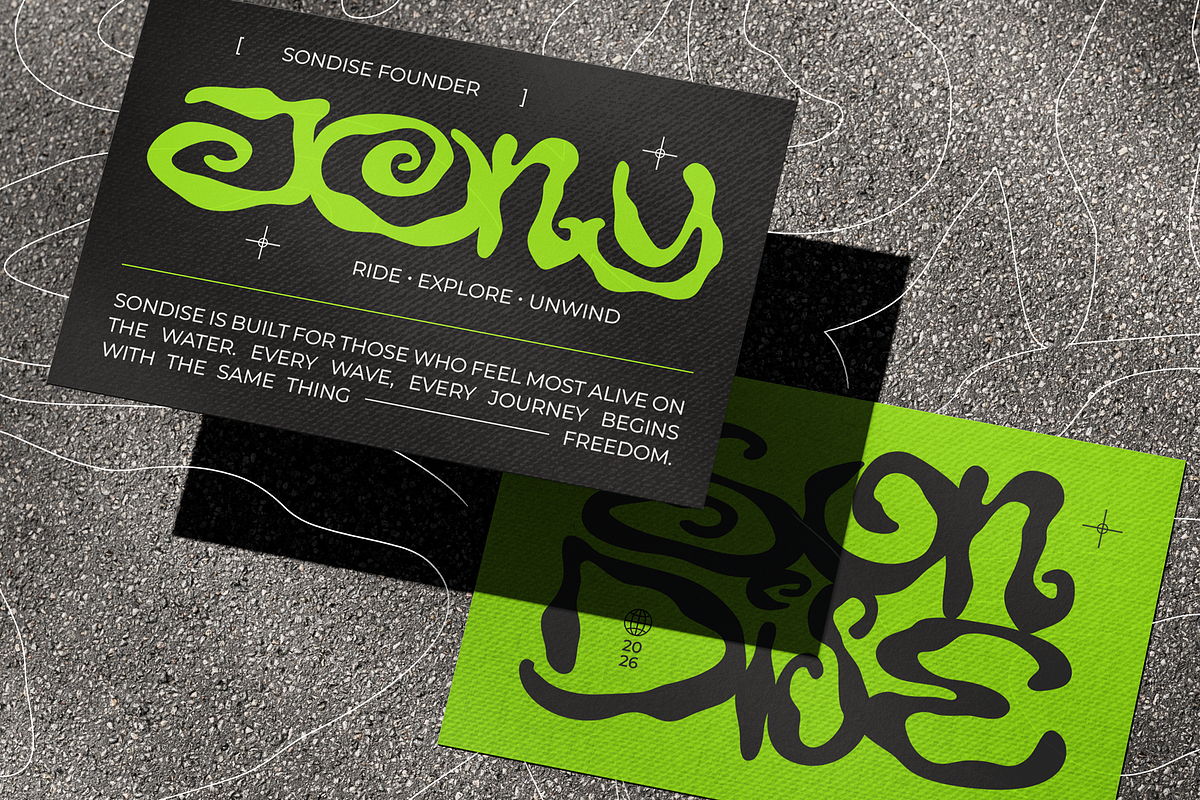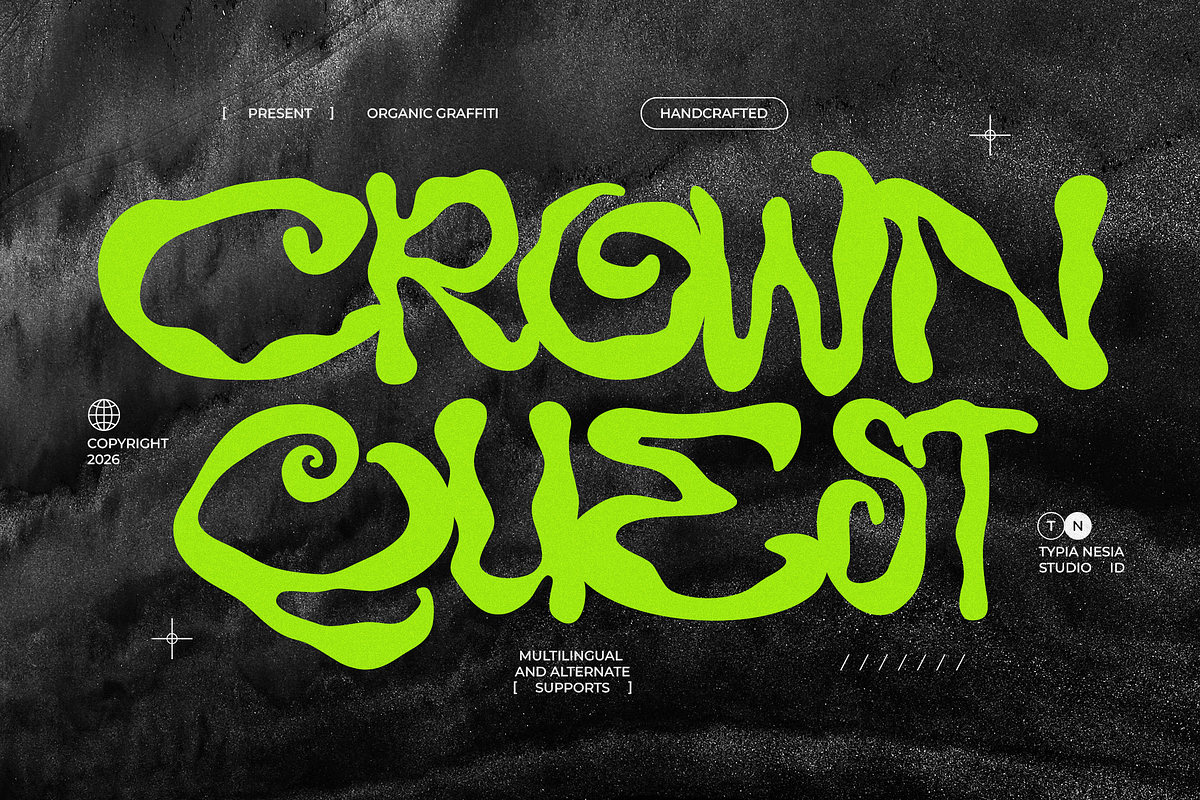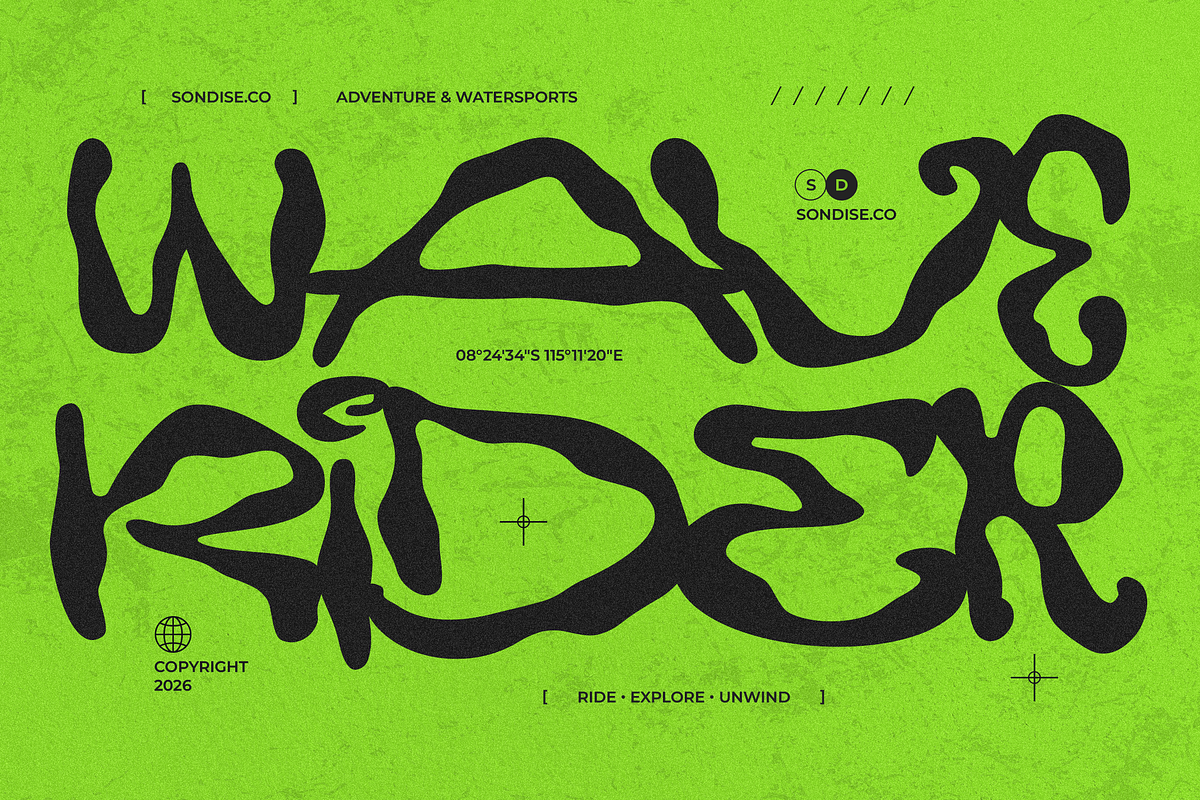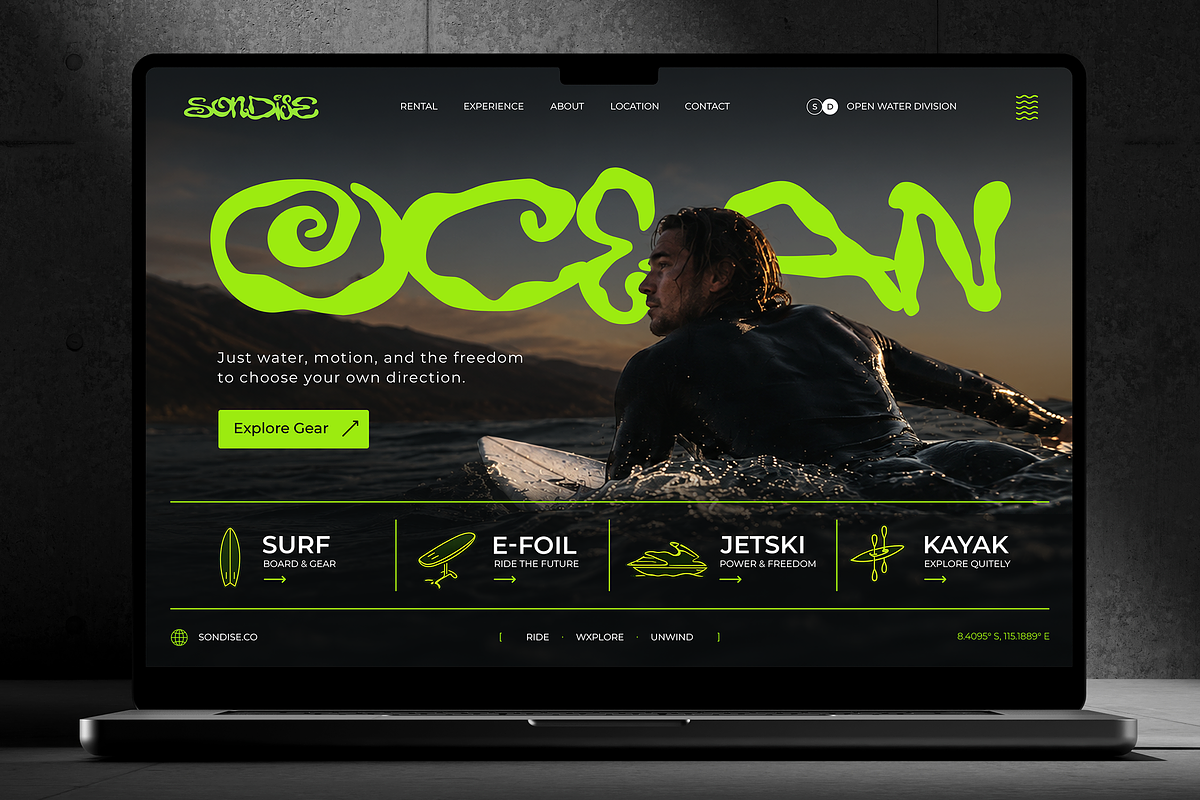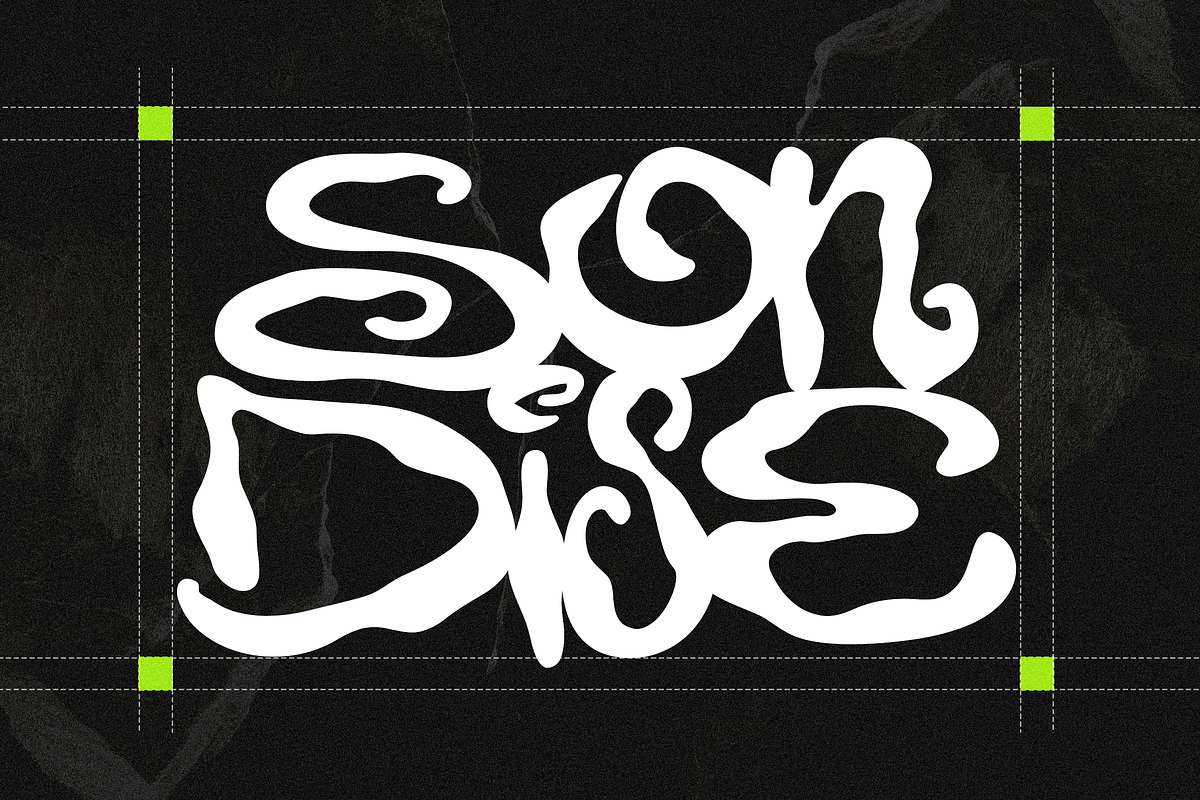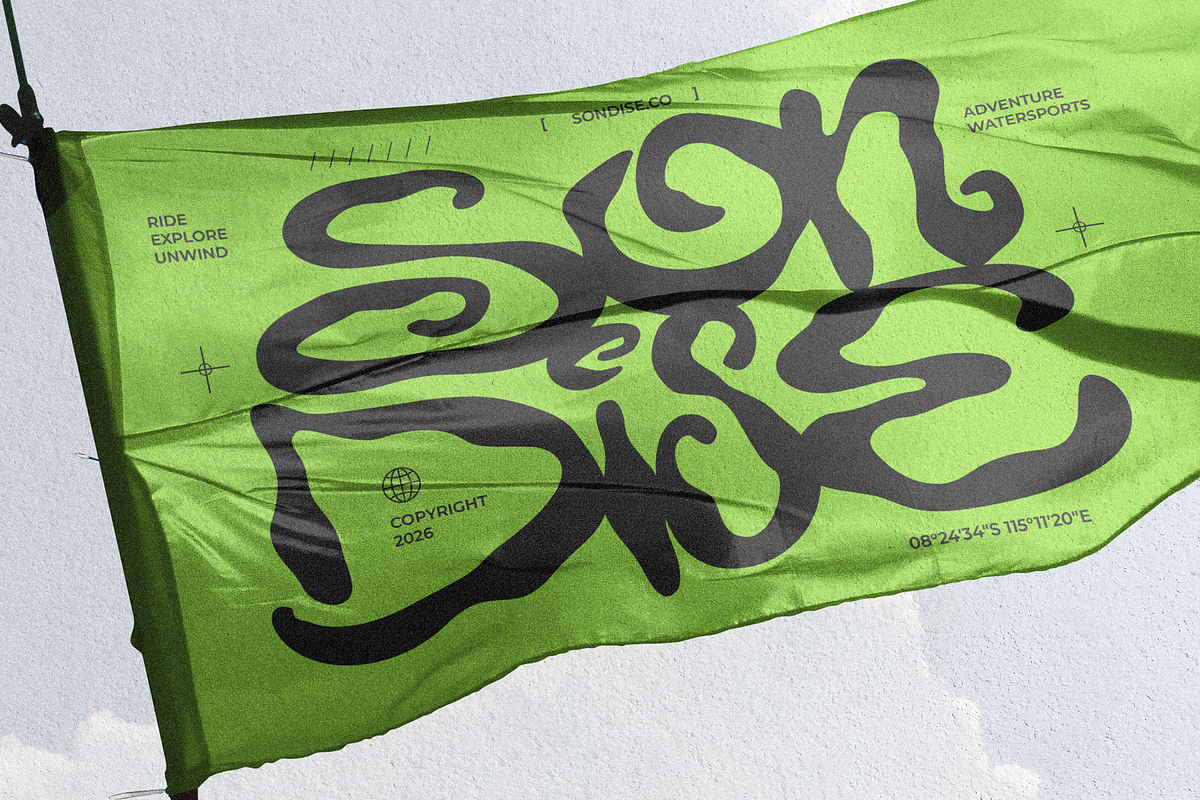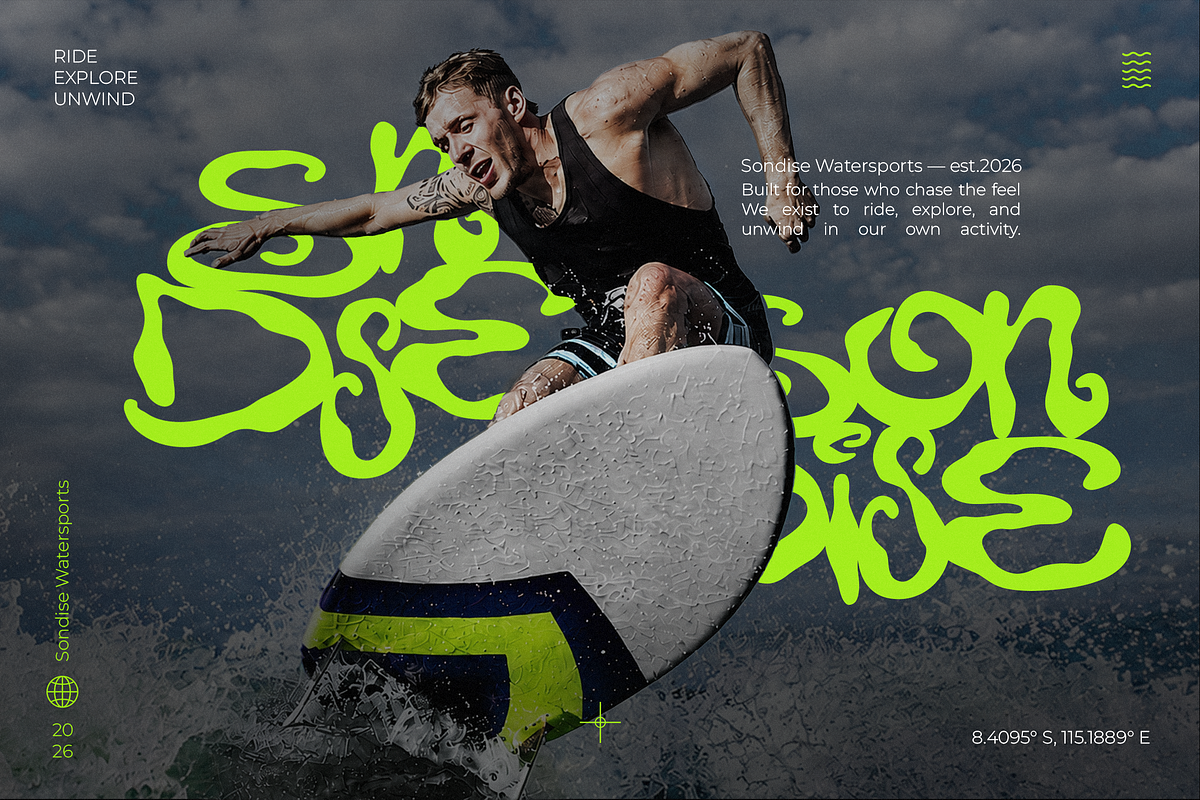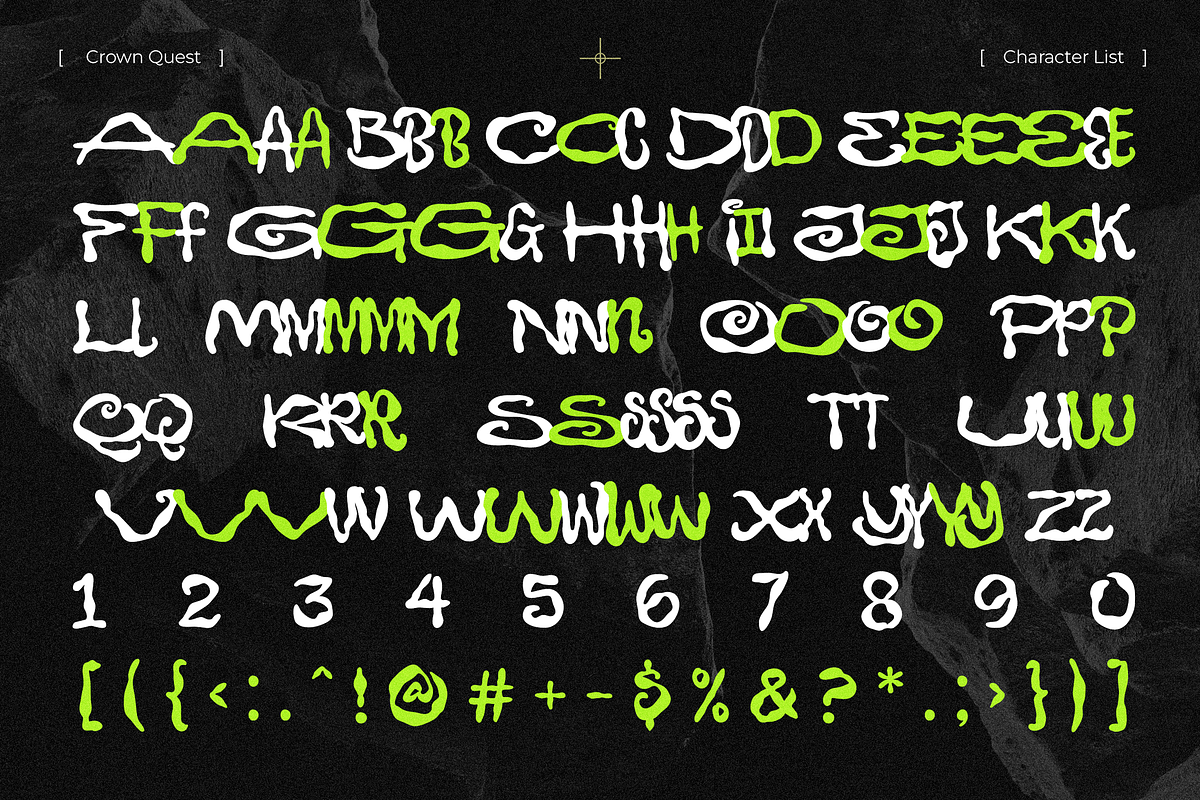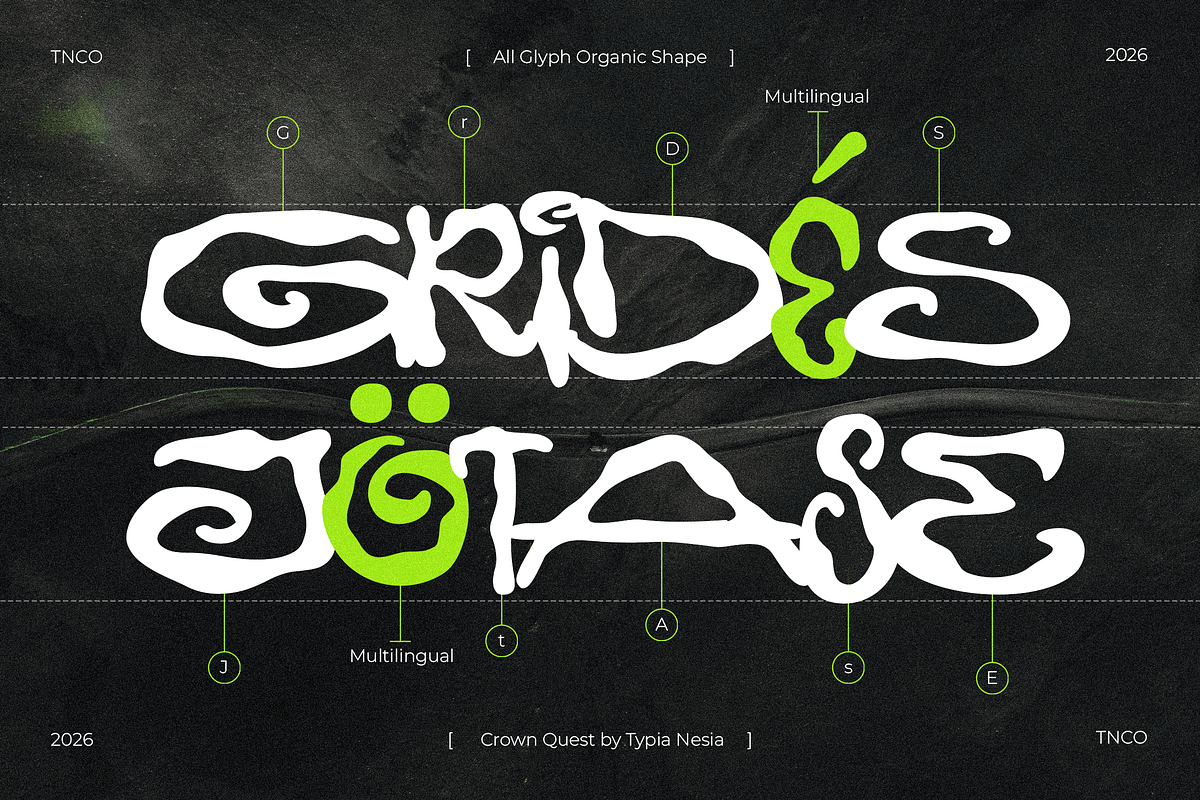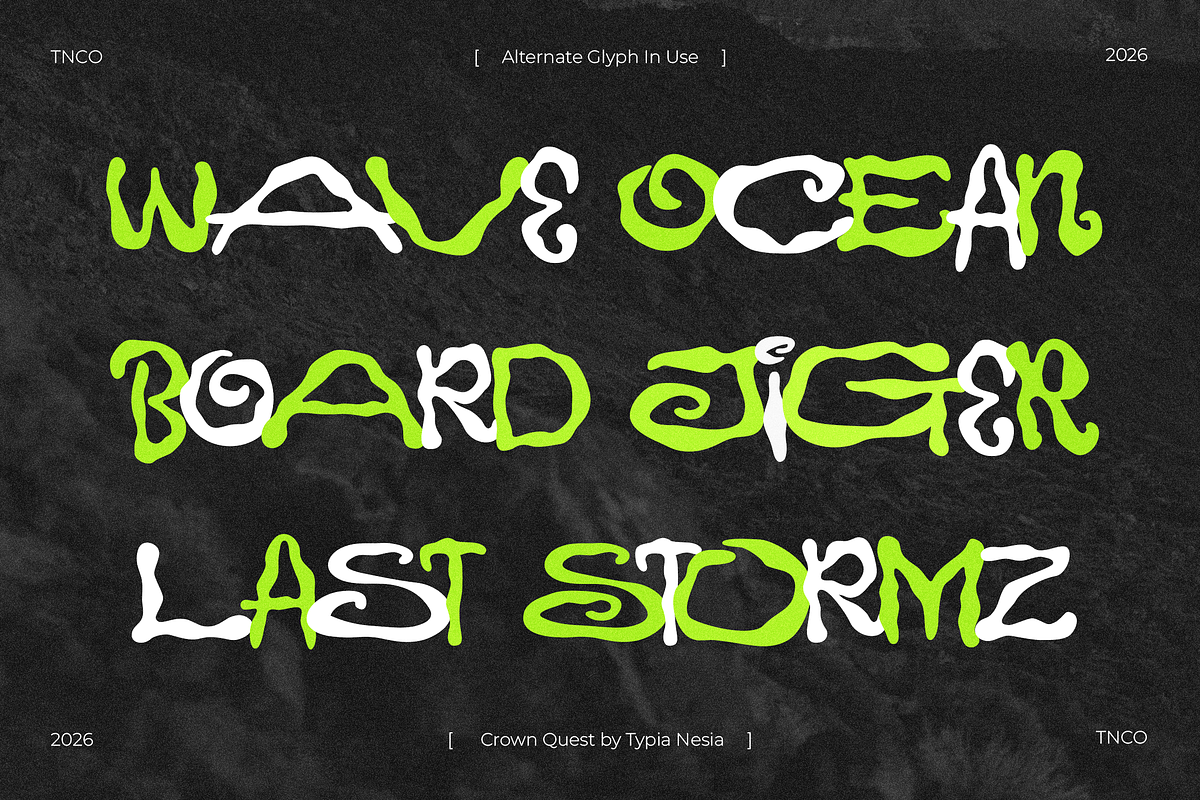
Crown Quest
Crown Quest - Organic Graffiti Display Font with Psychedelic Street Style
Crown Quest is an organic graffiti display font featuring handcrafted flowing curves, psychedelic letterforms, and expressive street-inspired details. Designed to bring energy and originality to every project, it delivers a bold urban personality that instantly captures attention across modern creative designs.
Perfect for streetwear branding, music festival posters, album covers, skate graphics, creative merchandise, packaging, logos, social media graphics, and artistic editorial layouts. It features multilingual support, alternate characters, and carefully crafted organic shapes, making it versatile and easy to use across a wide range of expressive design needs.
Bring authentic street energy and handcrafted creativity into every headline with Crown Quest.